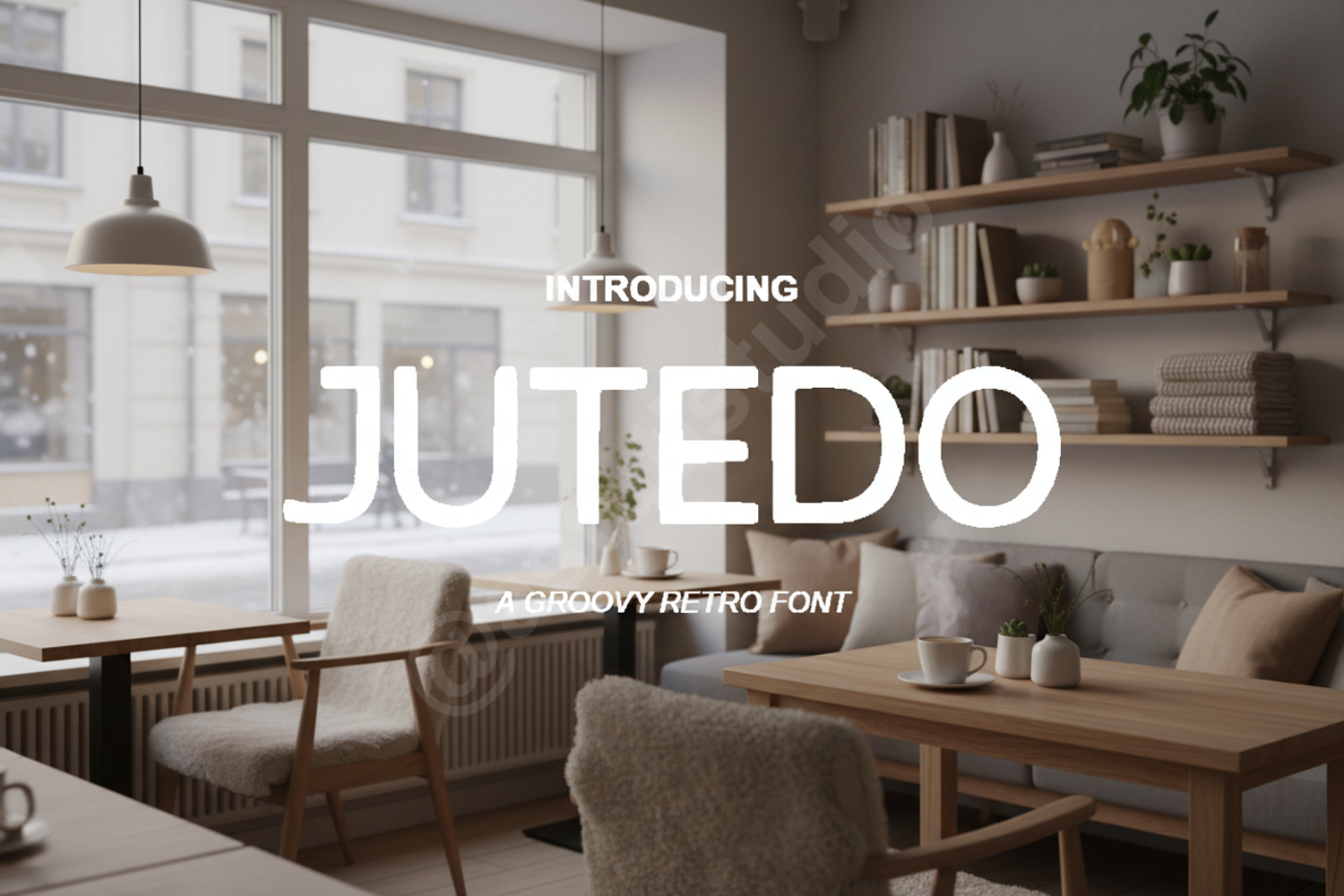
Jutedo - Elegant Modern Serif Typeface
Jutedo
Elevate your design projects with Jutedo, a premium serif font that blends timeless elegance with modern sophistication. Designed for versatility, Jutedo offers clean lines and balanced proportions, making it a must-have for designers seeking a high-end aesthetic. Whether you are crafting a luxury brand or a minimalist layout, this typeface provides the perfect balance of character and readability.
- Luxury Branding and Visual Identity
- Elegant Wedding Invitations and Stationery
- Professional Editorial Layouts and Magazines
- Stylish Social Media Graphics and Quotes
- High-end Product Packaging and Label Design
- Sophisticated Logo Design and Wordmarks